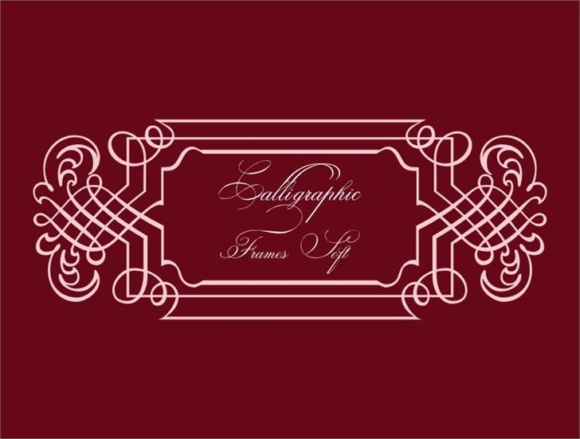
Calligraphic Frames Soft Font
About Calligraphic Frames Soft Font
Introducing Calligraphic Frames Soft, an exquisite dingbat set of ornamental frames designed in a captivating penmanship style. This collection offers a stunning array of beautiful frames, perfect for adding an elegant touch to a wide range of designs.
With Calligraphic Frames Soft, you can effortlessly elevate your projects with intricately designed frames that exude sophistication and grace. Each frame has been meticulously crafted to capture the essence of penmanship, featuring delicate lines, curves, and flourishes that create a sense of timeless beauty.
Whether you’re working on invitations, certificates, wedding stationery, or any other design project that calls for a touch of elegance, Calligraphic Frames Soft offers a variety of options to suit your needs. From simple and minimalistic frames to more elaborate and decorative designs, this dingbat set provides a versatile selection to complement your creative vision.
The penmanship style of Calligraphic Frames Soft adds a sense of refinement and artistry to your designs. The flowing lines and intricate details of each frame showcase the craftsmanship and attention to detail that is synonymous with calligraphy. These frames have the power to transform your work, making it visually captivating and engaging to the viewer.
The versatility of Calligraphic Frames Soft allows you to incorporate these ornamental frames seamlessly into various design themes and styles. Whether you’re aiming for a classic and traditional look or a modern and contemporary aesthetic, these frames can be customized and adapted to suit your desired outcome.
Embrace the beauty of Calligraphic Frames Soft and let your designs flourish with elegance and sophistication. Whether you’re a graphic designer, a calligraphy enthusiast, or someone seeking to add a touch of timeless charm to their projects, this dingbat set is a must-have resource.
Unlock the creative possibilities with Calligraphic Frames Soft and let your designs come to life with the enchanting beauty of penmanship-inspired ornamental frames. Elevate your work and captivate your audience with the timeless elegance and intricate details of these carefully crafted frames.